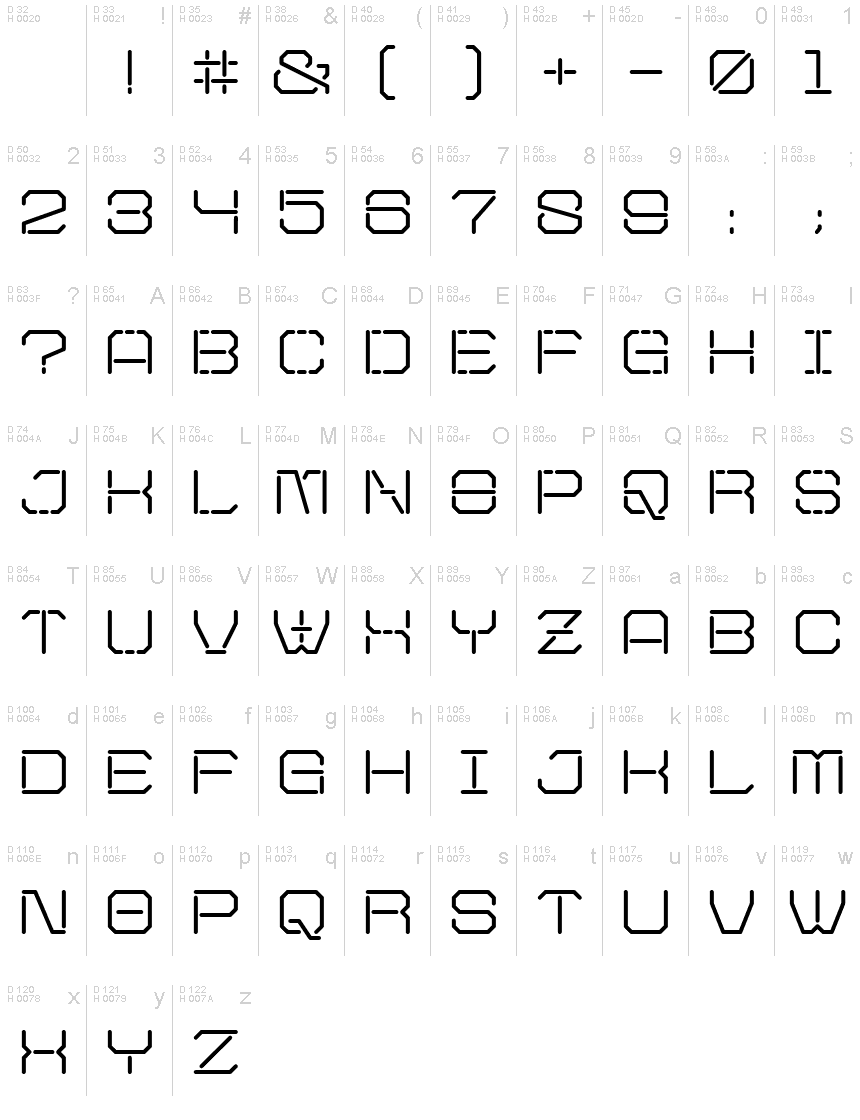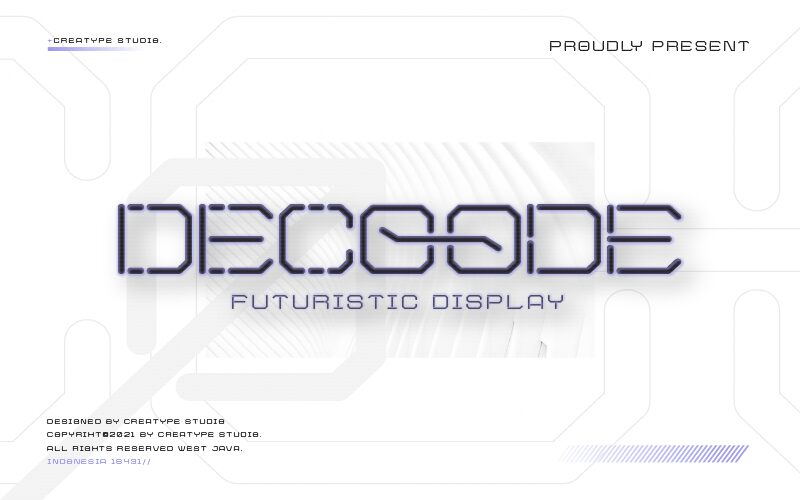
Decoode Regular
Decoode, a creation by Creatype Studio, is an innovative display font that embodies a sleek and modern style. With its semi-light weight and expanded width, Decoode adds a unique touch to any design project.
This all-caps techno font is perfect for creating attention-grabbing headlines on websites, posters, and advertisements. Its futuristic aesthetic makes it suitable for sci-fi movie titles or video game logos. Whether you're designing a cutting-edge tech magazine or a trendy fashion blog, Decoode will elevate your typography game to the next level.